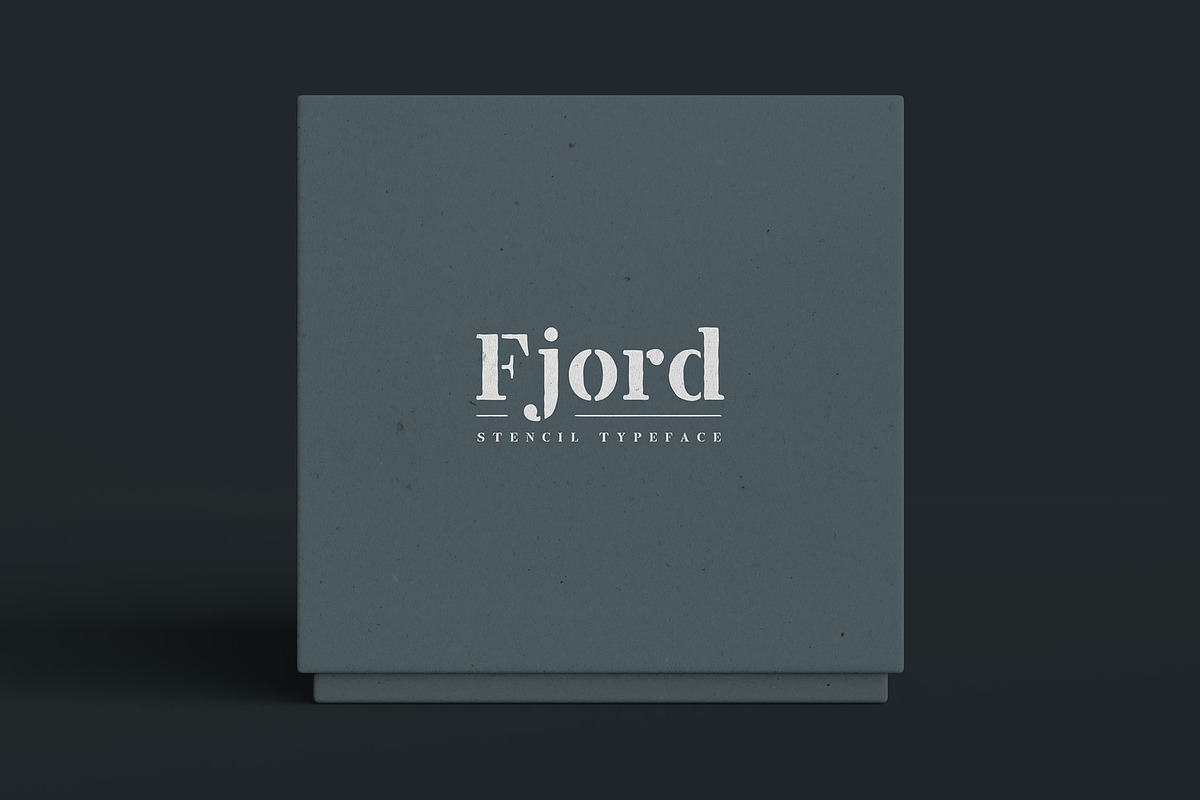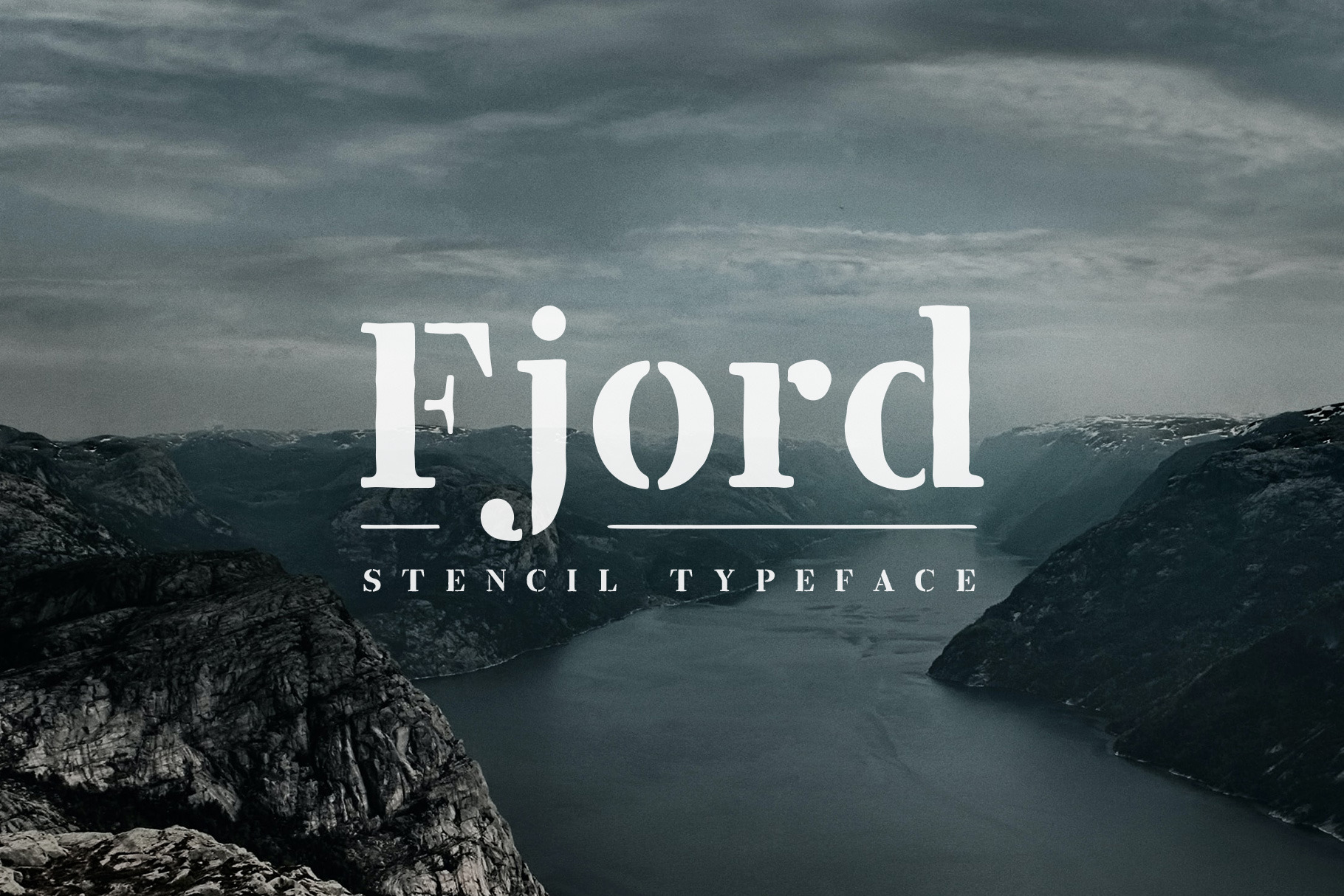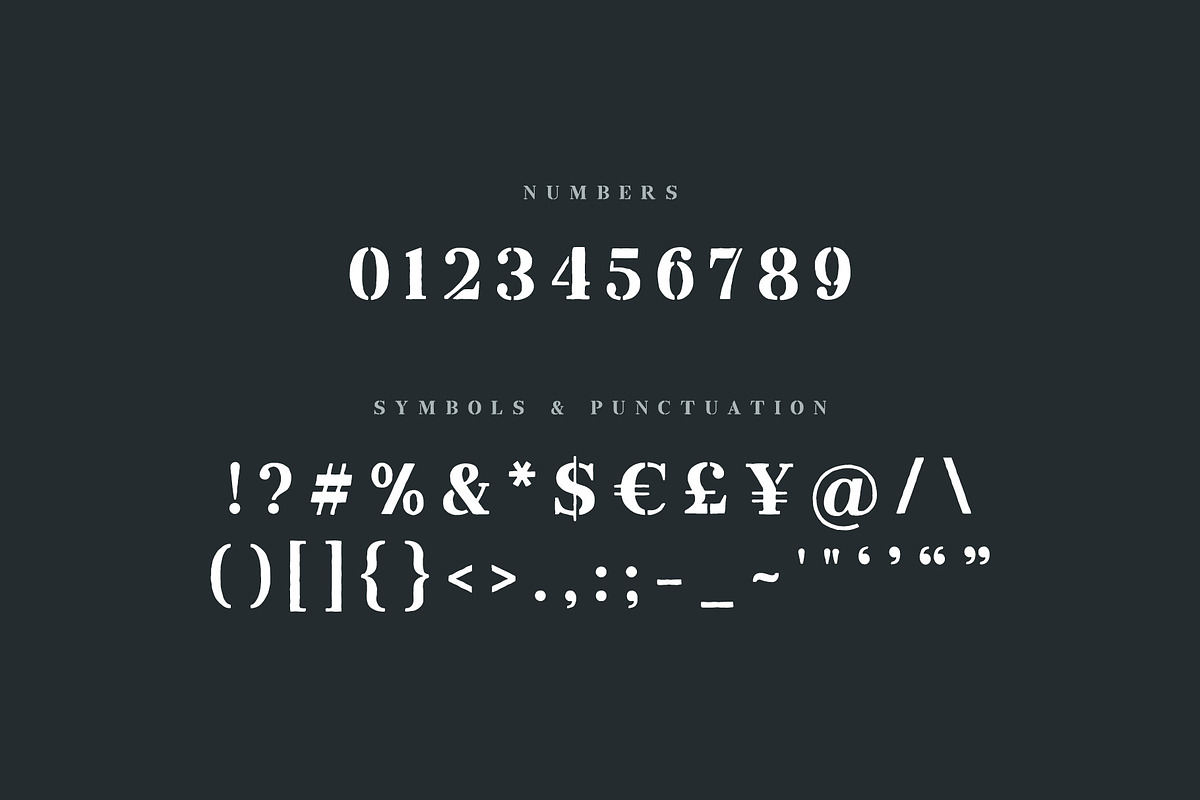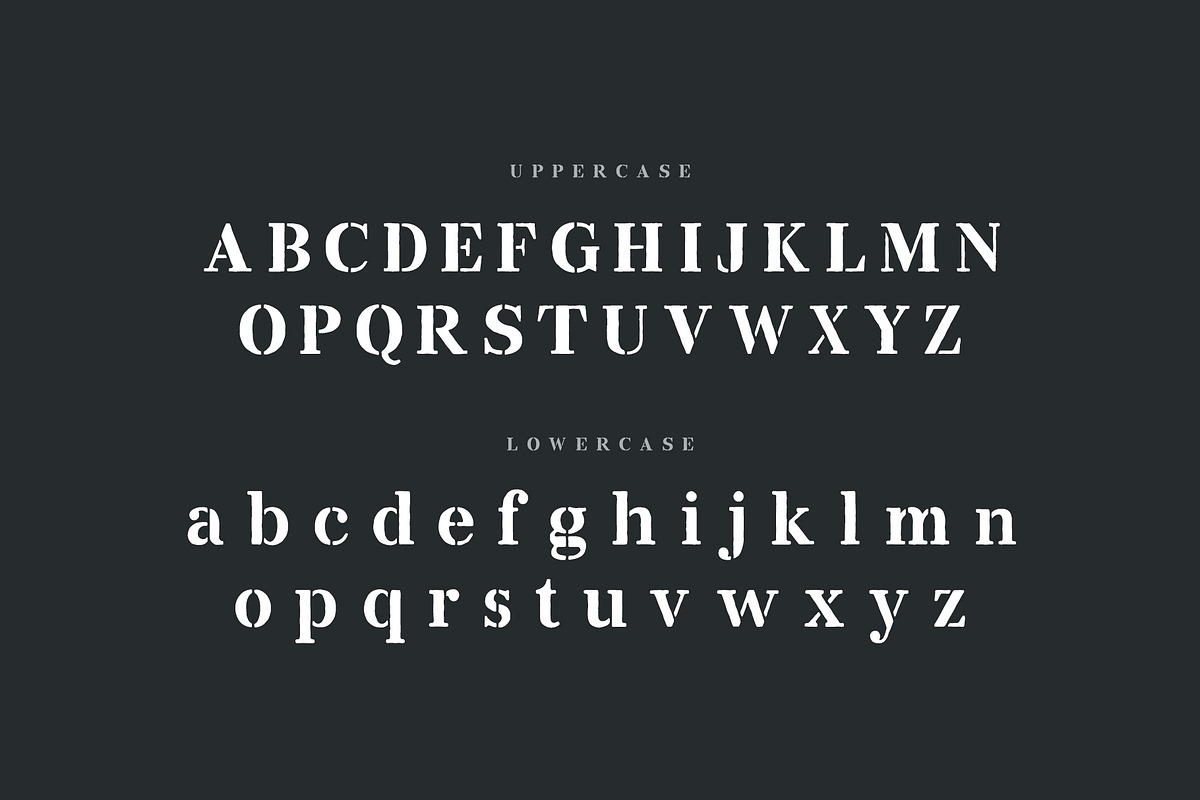
Fjord Stencil - Display Font
Fjord Stencil is a new high quality display typeface from Medialoot that combines the militaristic characteristics of a stencil typeface, with subtle rough edges, elegant serifs and a natural feeling. Use this font to add a unique touch your artwork. Fjord Stencil is a bold typeface with contrasting weights between light and heavy.
This typeface includes all uppercase and lowercase letters, as well as numbers and the most commonly used symbols and punctuation. This font is ideal for headlines and other display type uses, such as flyers, posters, album artwork, invitations etc.
Fjord Stencil is a full featured English language display font with:
- All uppercase letters (A-Z)
- All lowercase letters (a-z)
- All numbers (0-9)
- Most common symbols (!?@%$€£¥ etc.)
- Most common punctuation (.,:;'"-~ etc.)